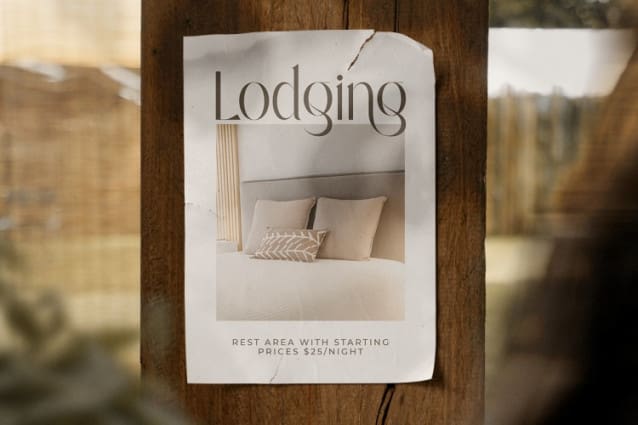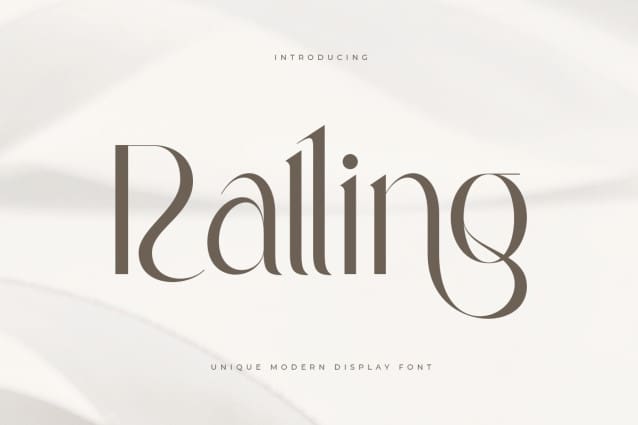
Ralling Font
Ralling Font – A Unique Modern Display Font that we created special for elegant and Fashion branding needs, with extra characters alternate in unique shape will be ready to add value of your brand. It so nice to leverage designer or product owner that need solutions to make their design look more classy and modern. And specially for this font, We prepared any alternate characters to help you create unlimited variations for your creative needs.